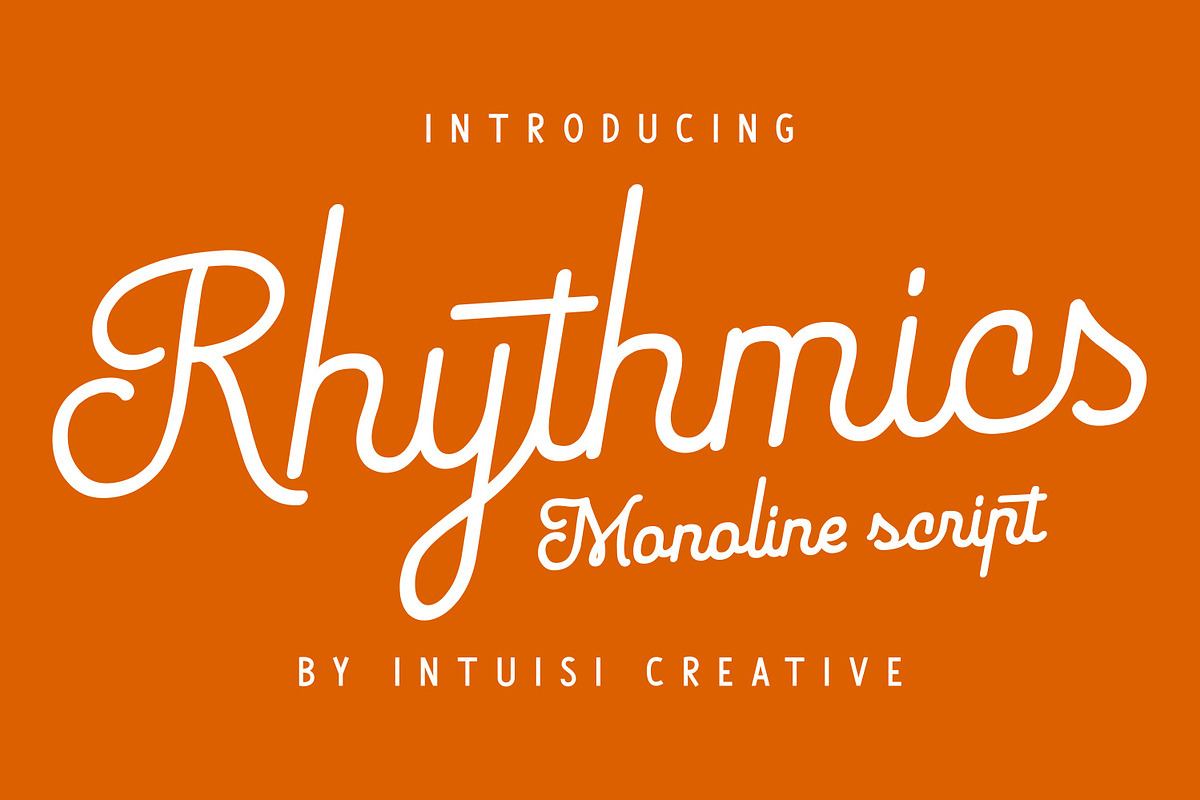
Elegant, modern, and beautifully flowing, Rhythmics - Monoline Script Font Free Download is a monoline script typeface designed to bring fluidity and style to your designs. Perfect for branding, invitations, logos, social media graphics, and more, this font combines the charm of cursive lettering with a contemporary and sleek feel.
With its smooth, consistent strokes and sophisticated style, Rhythmics adds a personal touch to your typography while maintaining an elegant, minimalist look. Whether you're designing a chic brand identity or crafting a stylish wedding invitation, this font offers a refined and graceful touch.